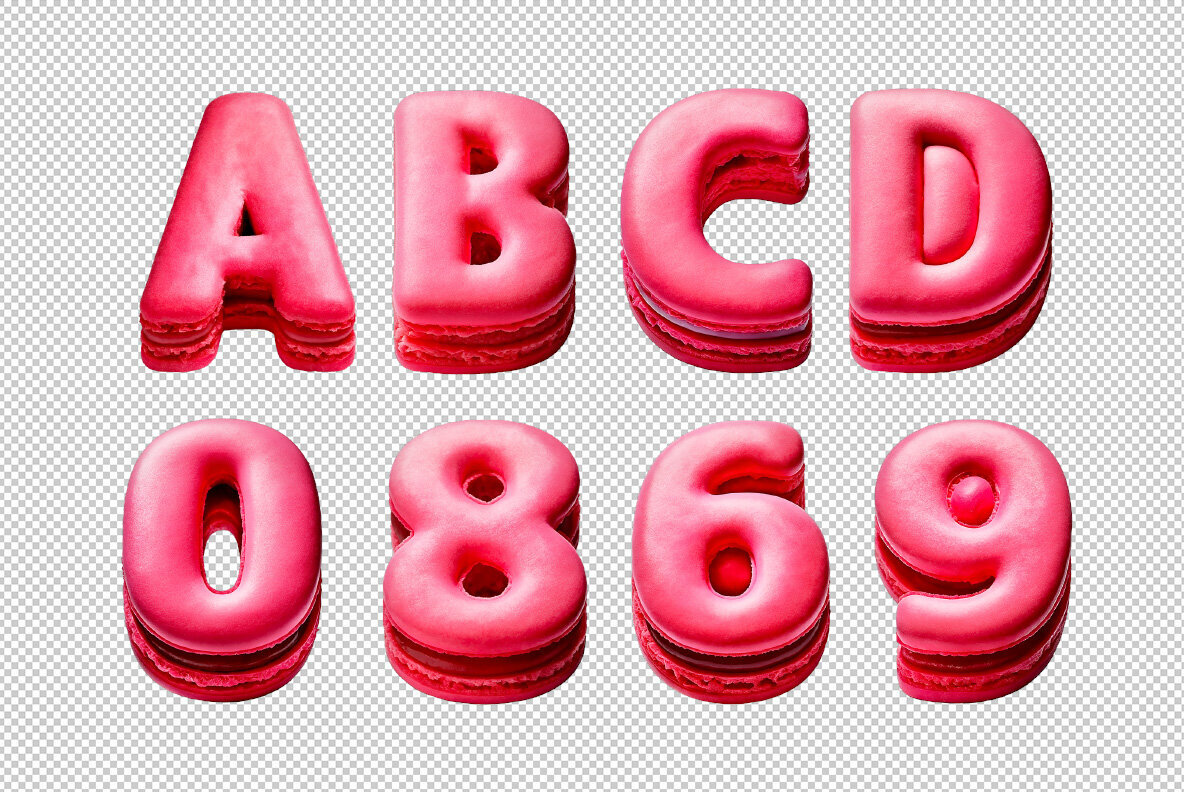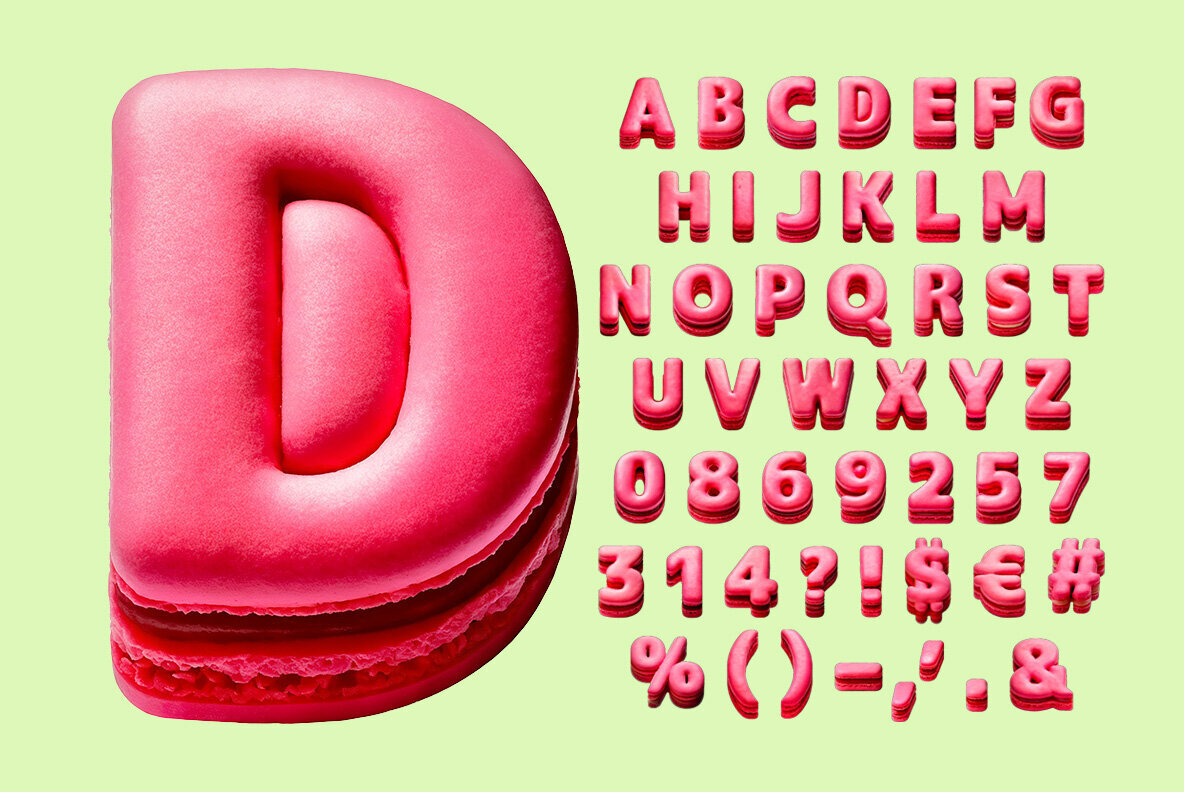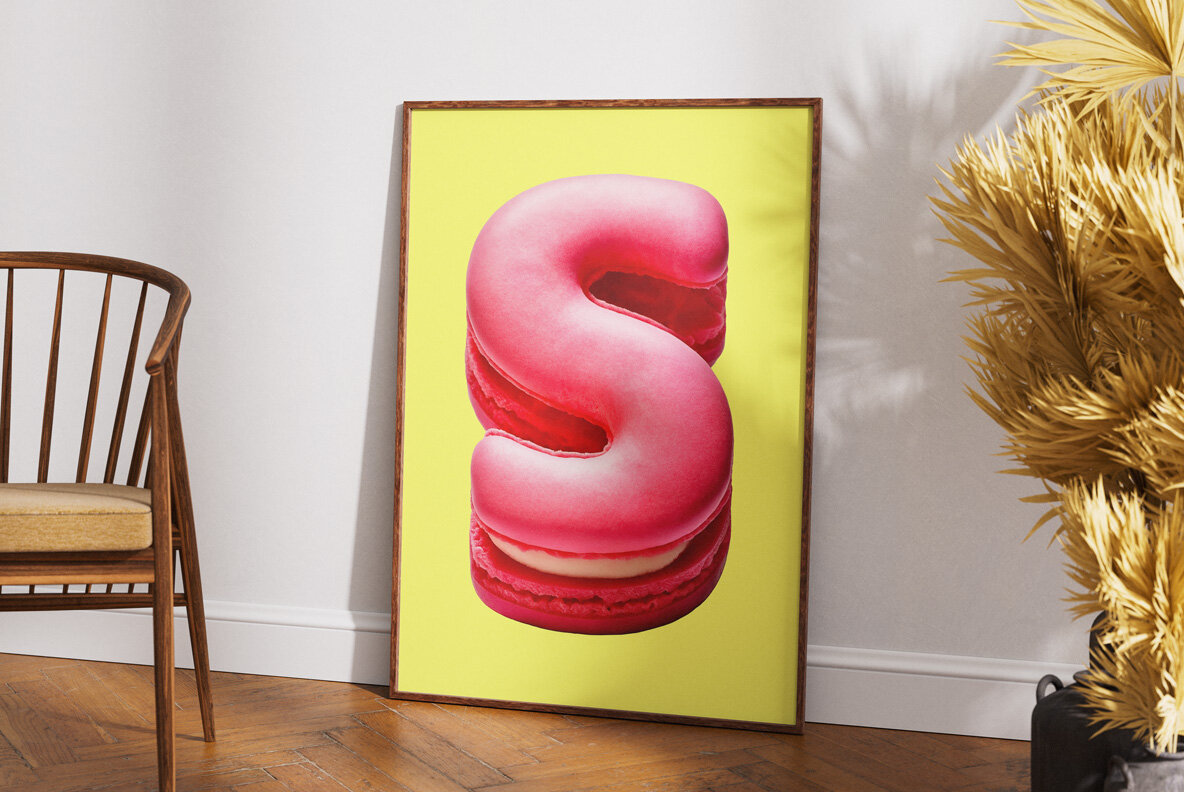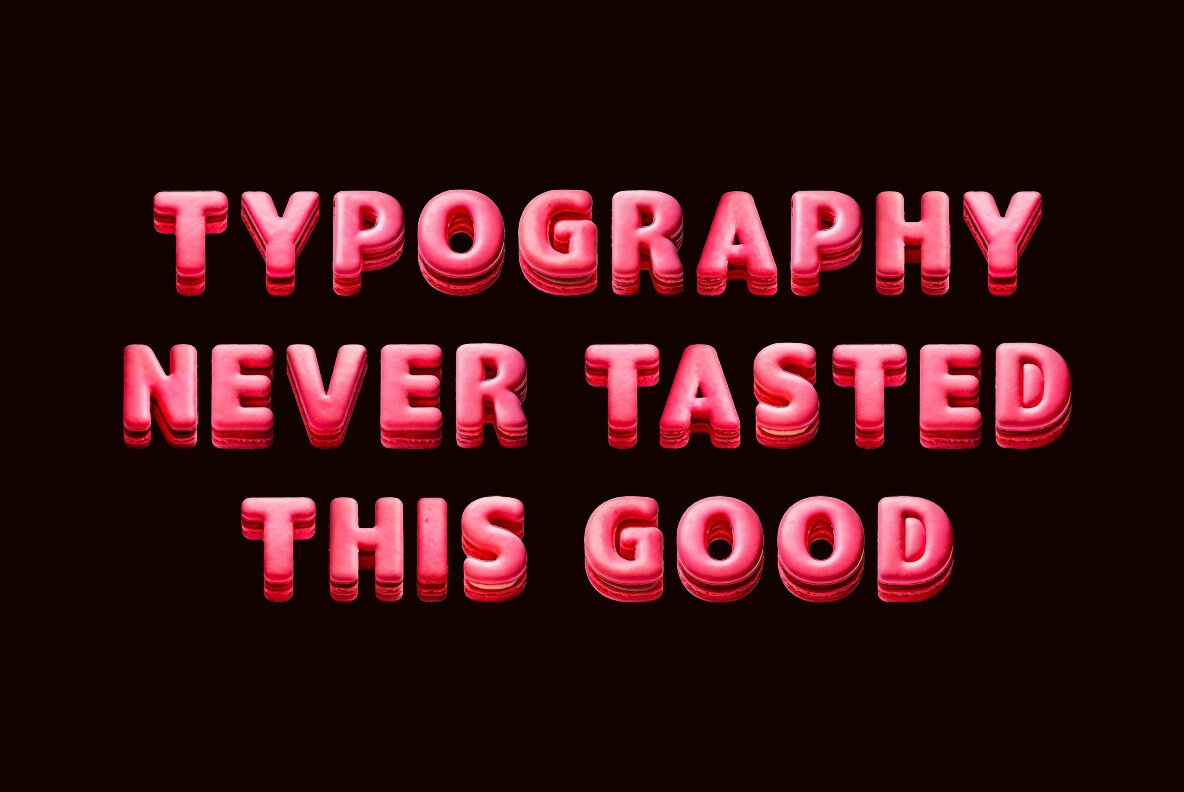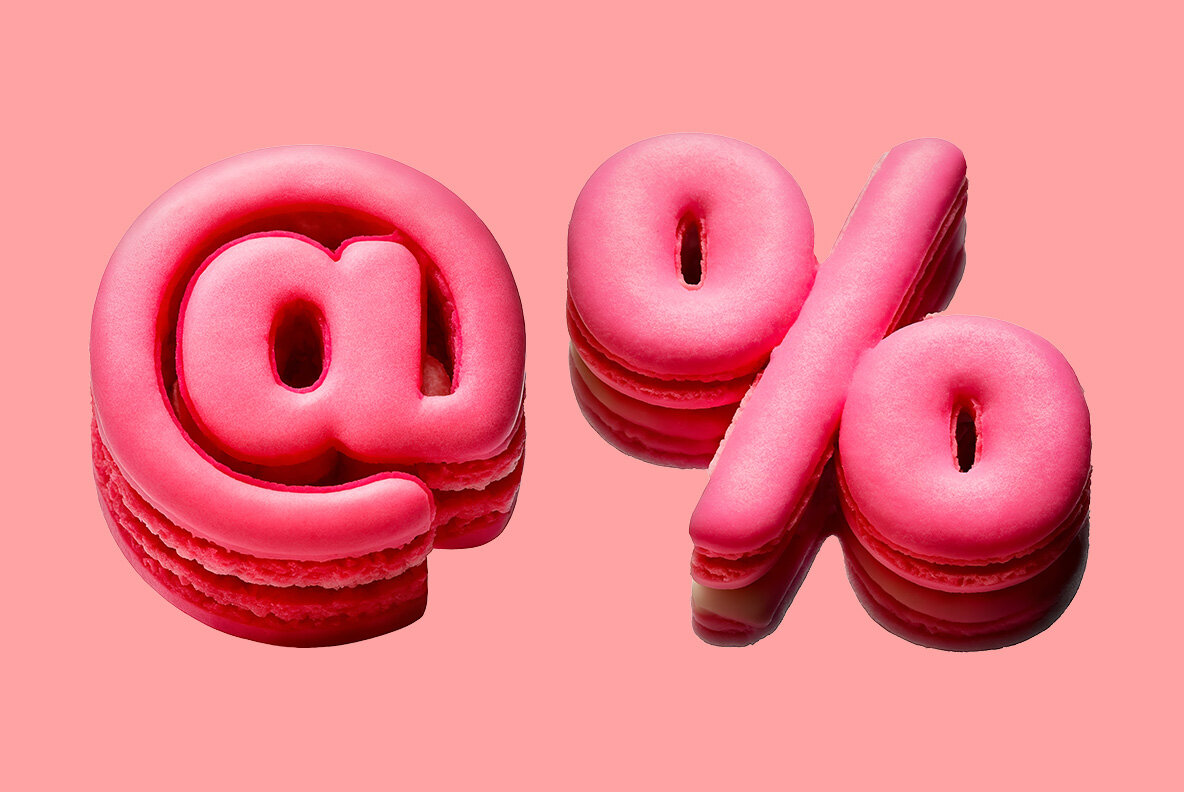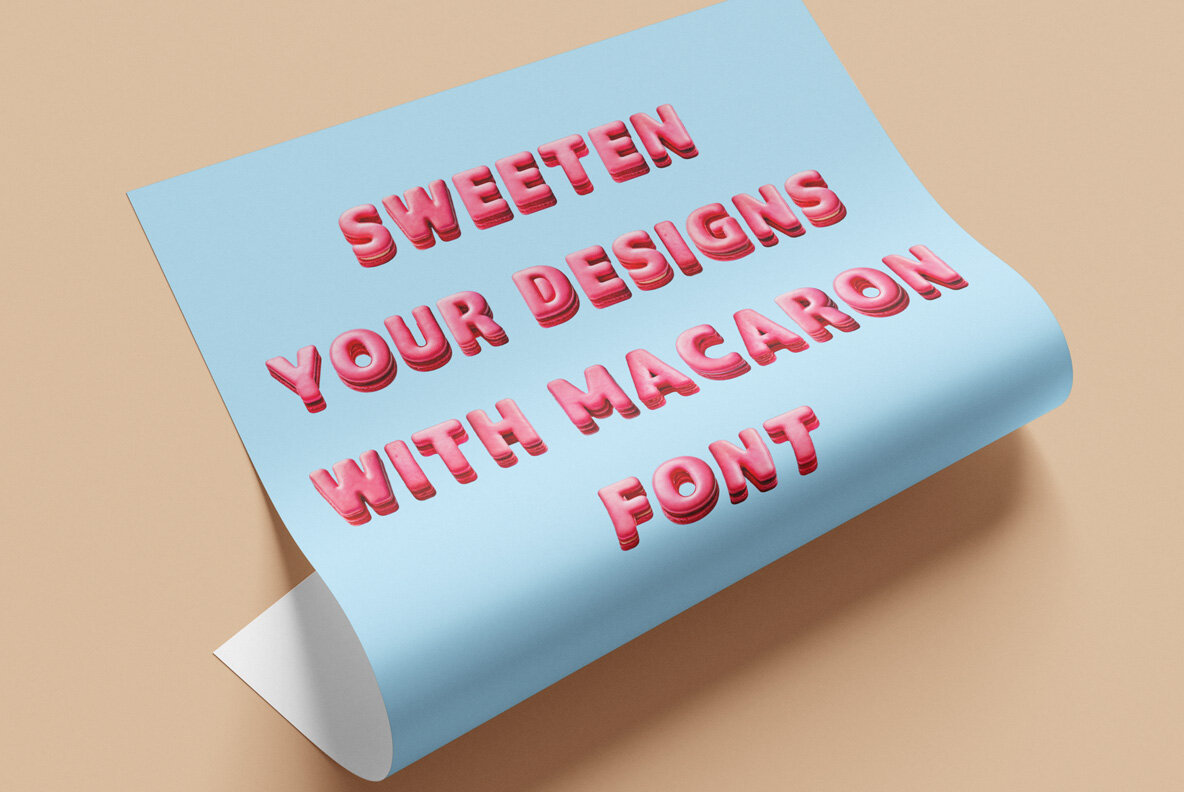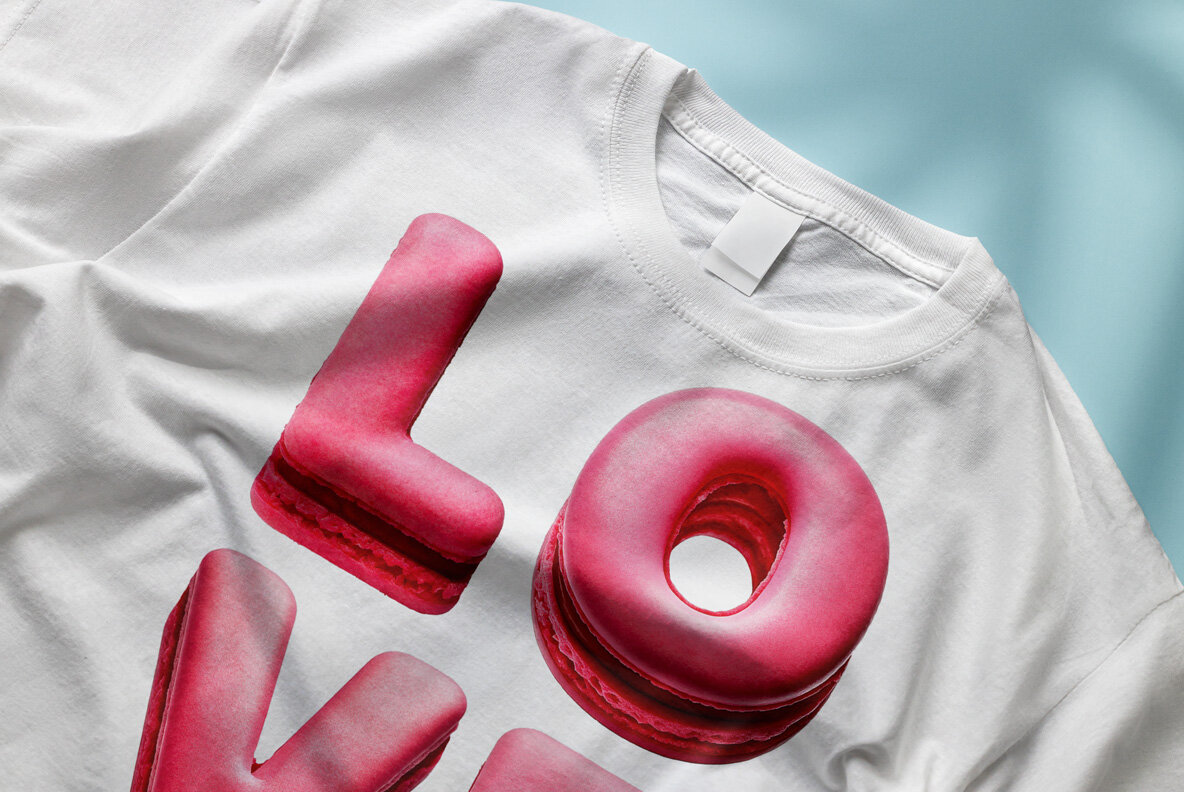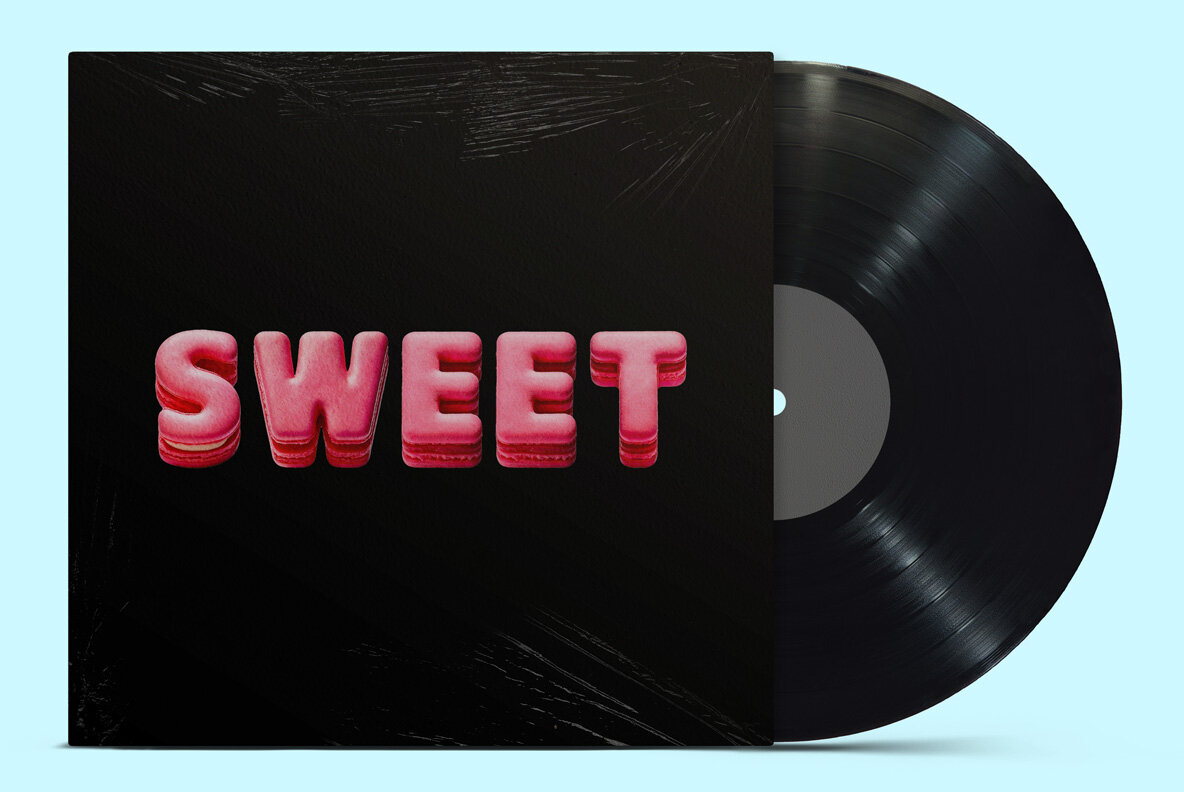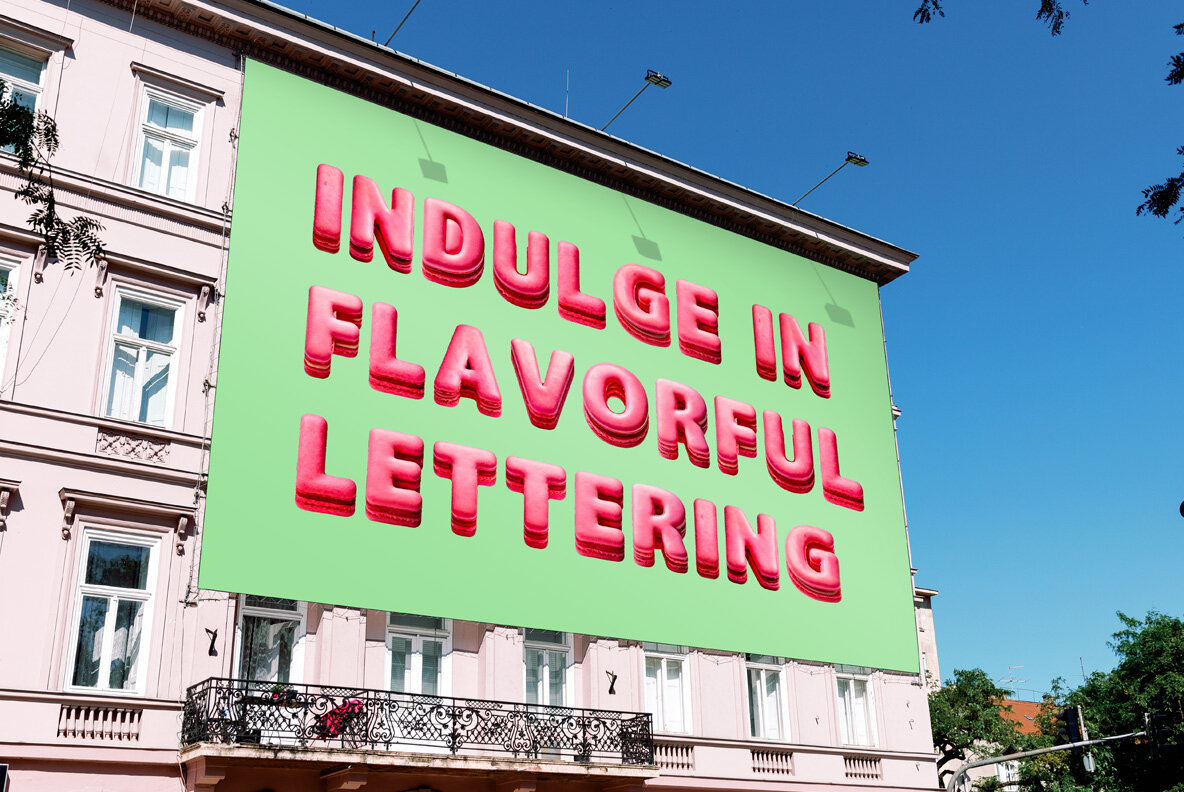
Try the delightful Macaron Font, where each letter is crafted from luscious pink macarons! Sweet and playful, this font brings the charm of patisserie treats to your designs. Perfect for dessert-themed projects, bakery branding, or anything needing a sprinkle of sweetness. Every letter is a bite-sized masterpiece, making your text look as irresistible as a French macaron. Add a touch of whimsy and elegance with this unique macaron alphabet that’s sure to captivate and inspire creativity. A high definition OpenType Font. Contains uppercase characters, numerals and basic punctuation. (Draw height roughly 800 pixels). All letters and glyphs that comprises this font you can see on the preview. The font is a colour OpenType file which means this font will show up only in apps that are compatible with color bitmap fonts. Now that OpenType-SVG has been adopted as the industry standard, there is good chance that you can start using color fonts across your favorite software and hardware (Photoshop, Illustrator, InDesign, QuarkXPress, Keynote, PowerPoint, Word etc.) However all characters are also included as individual .png files which can be opened in any graphics software. Each letter comes as a separate PNG file on a transparent background. Each image has the high resolution size of 4000x4000px. This downloadable package contains 52 files. Letters : A B C D E F G H I J K L M N O P Q R S T U V W X Y Z Punctuation and Language Support. Due to the large nature of OpenType fonts, extended punctuation and language support are not included in the font files. However all punctuation characters and the following accents are included as individual image files in the .png letter set, which can be manually added to your text.
Others : ! ? - . ' $ € % &